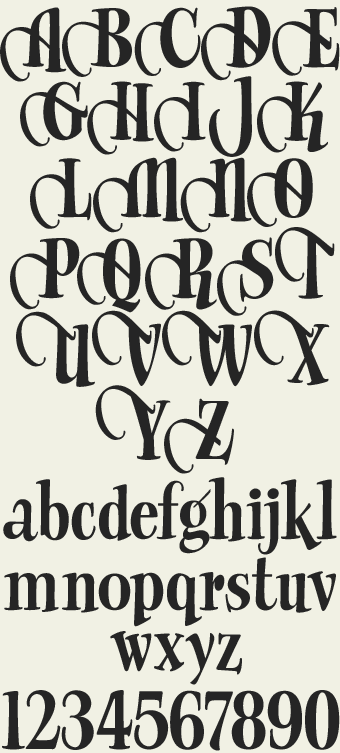
A Roman based grotesque inspired by the work of Cecil Wade. This type of lettering was used for headlines on showcards and posters from the twenties onwards. Although not typically Art Deco itself, these curvacious styles were often used to counterpoint and animate the more angular designs of the period. Set includes 6 fonts. You might also like: Hertford & Wade Dynamic.